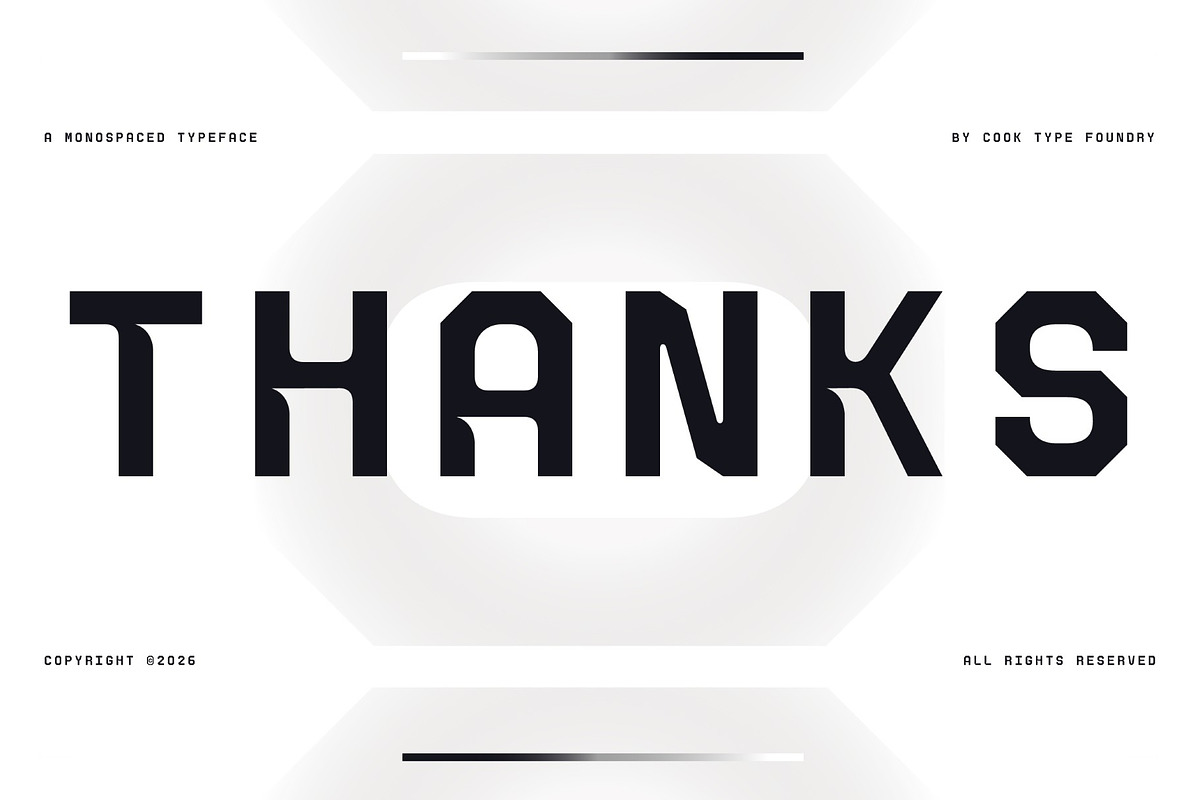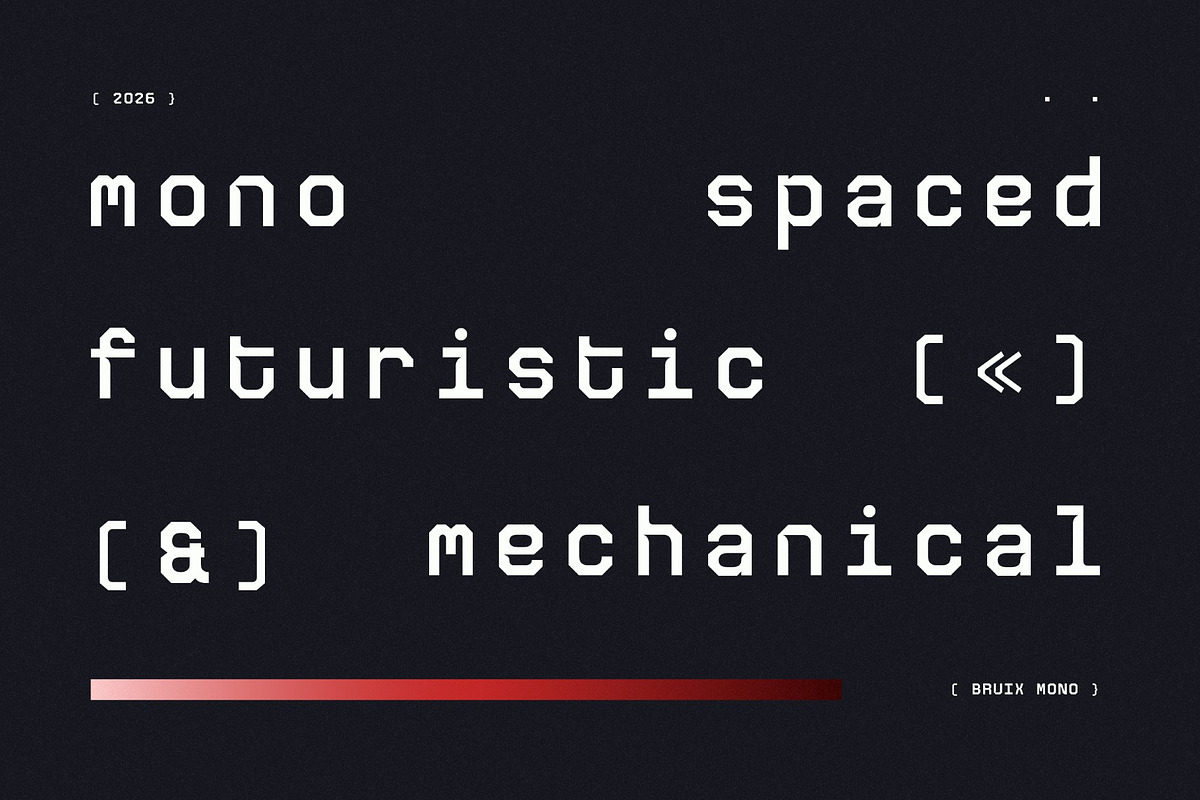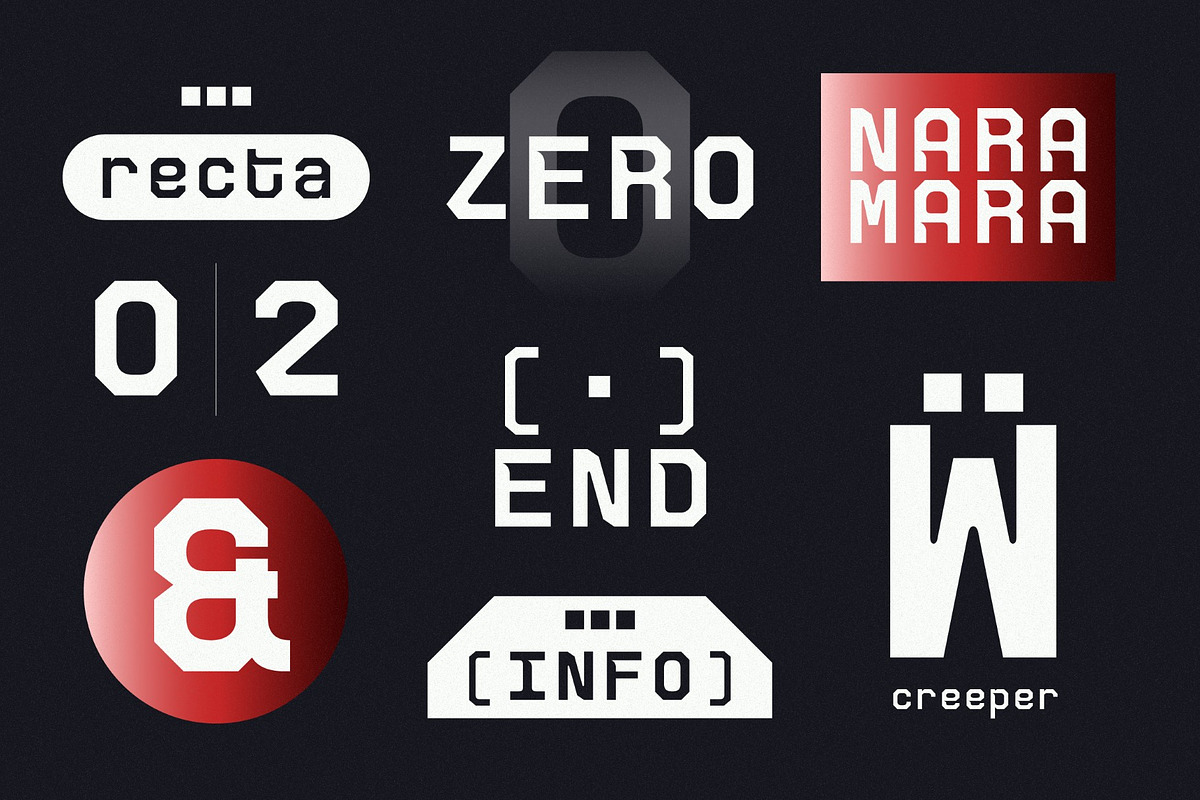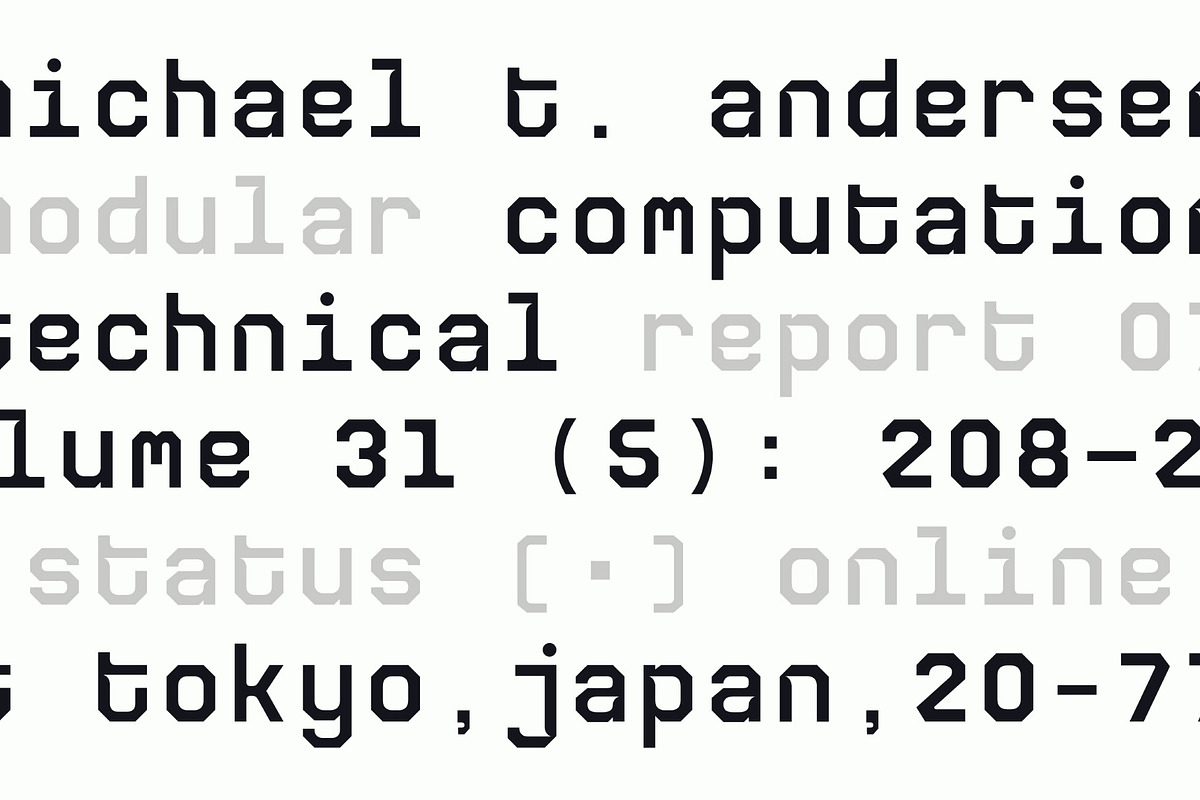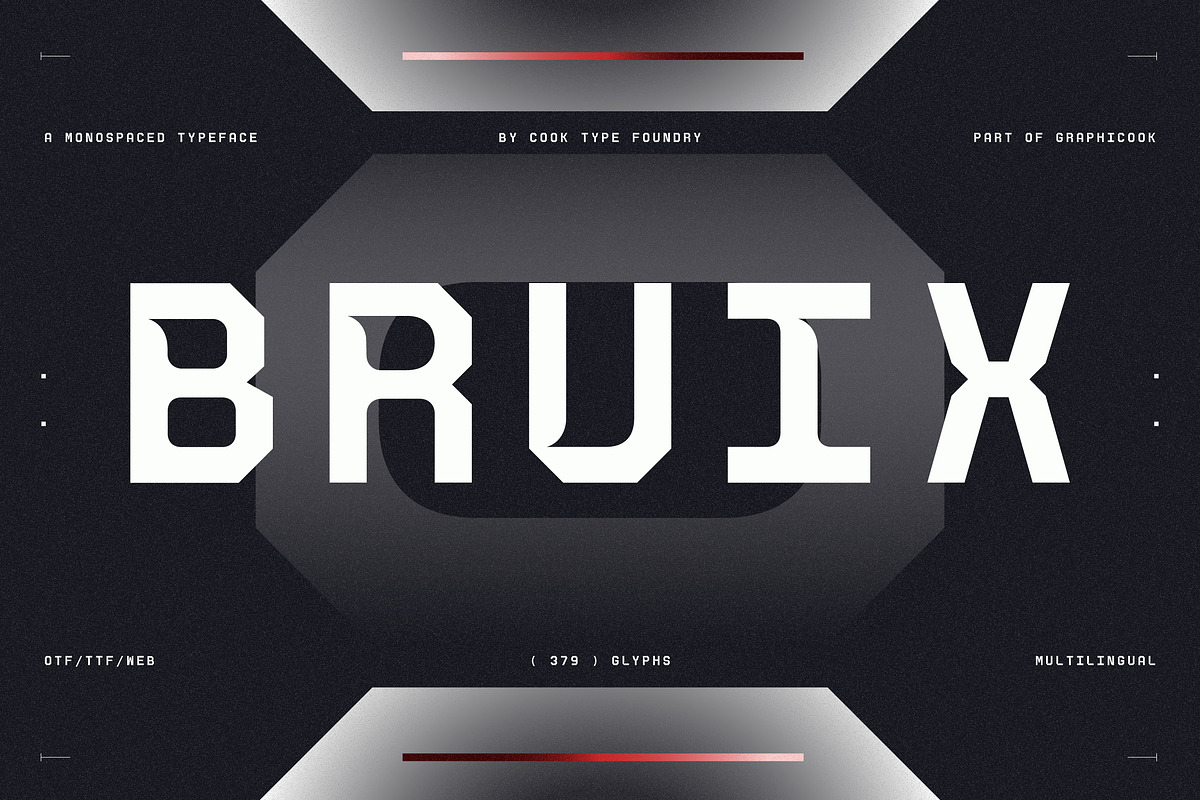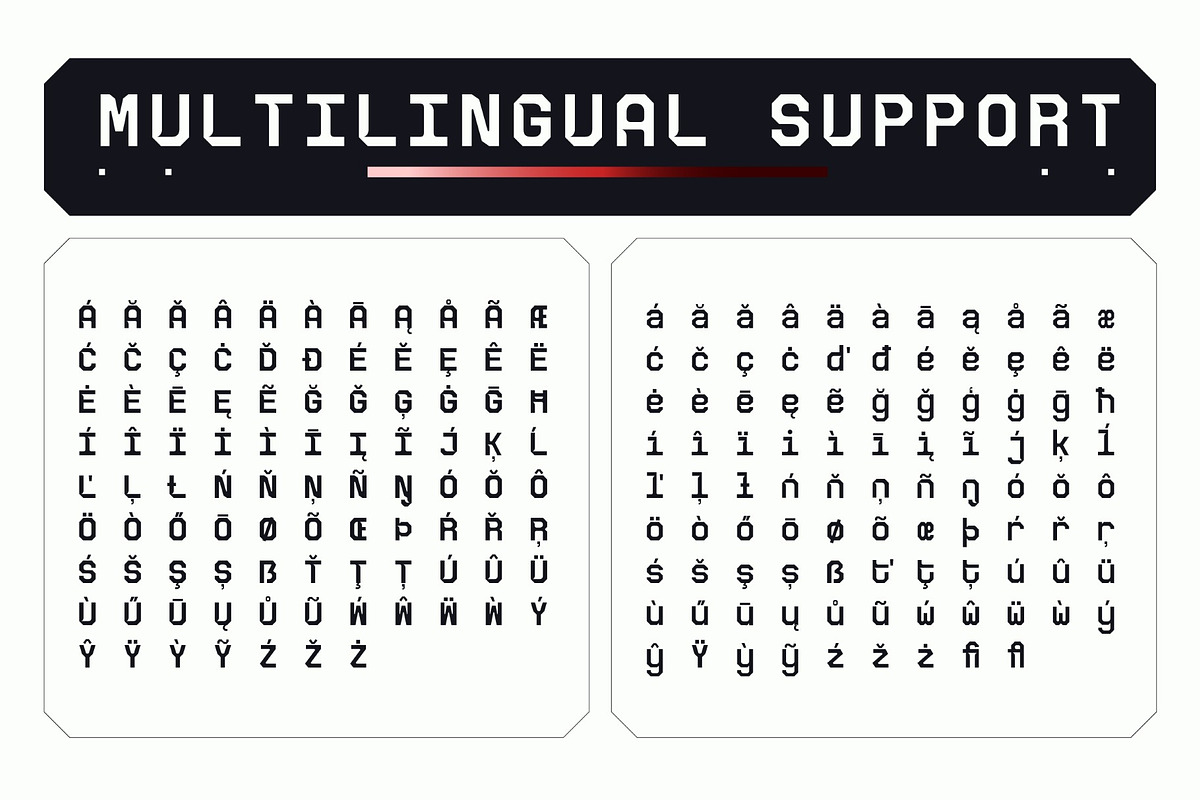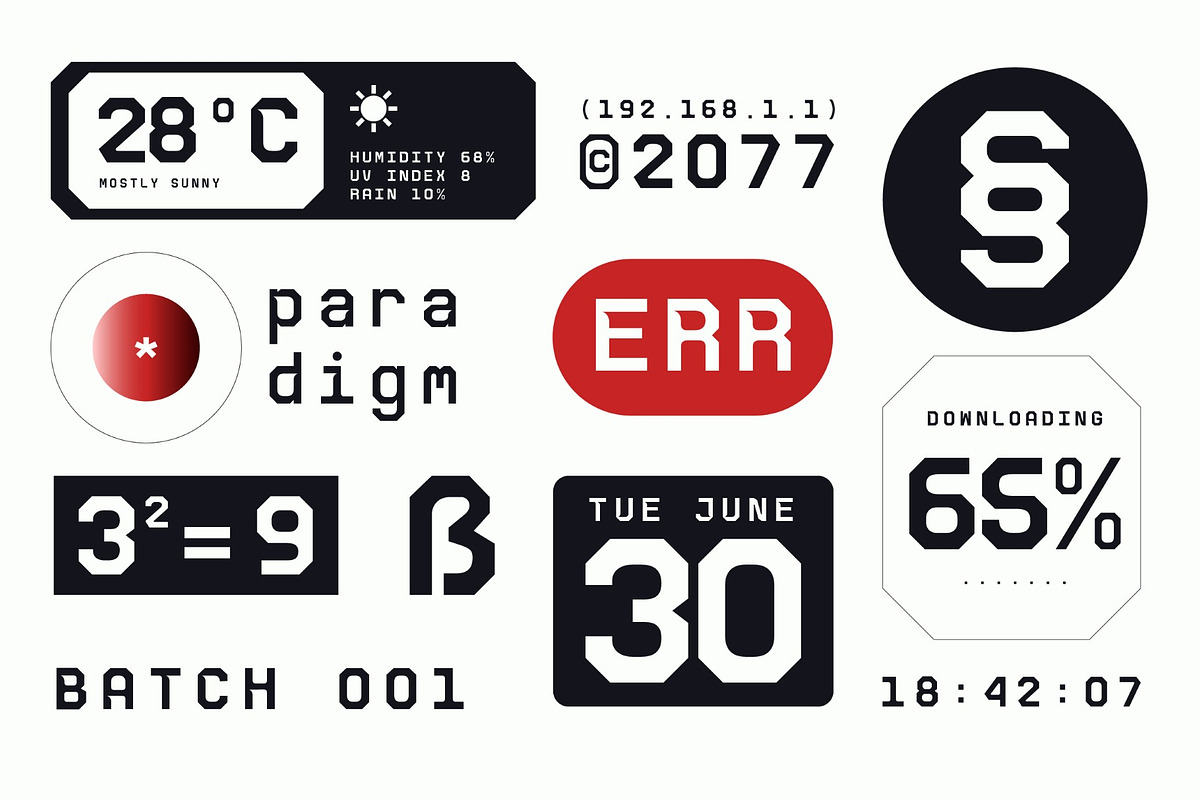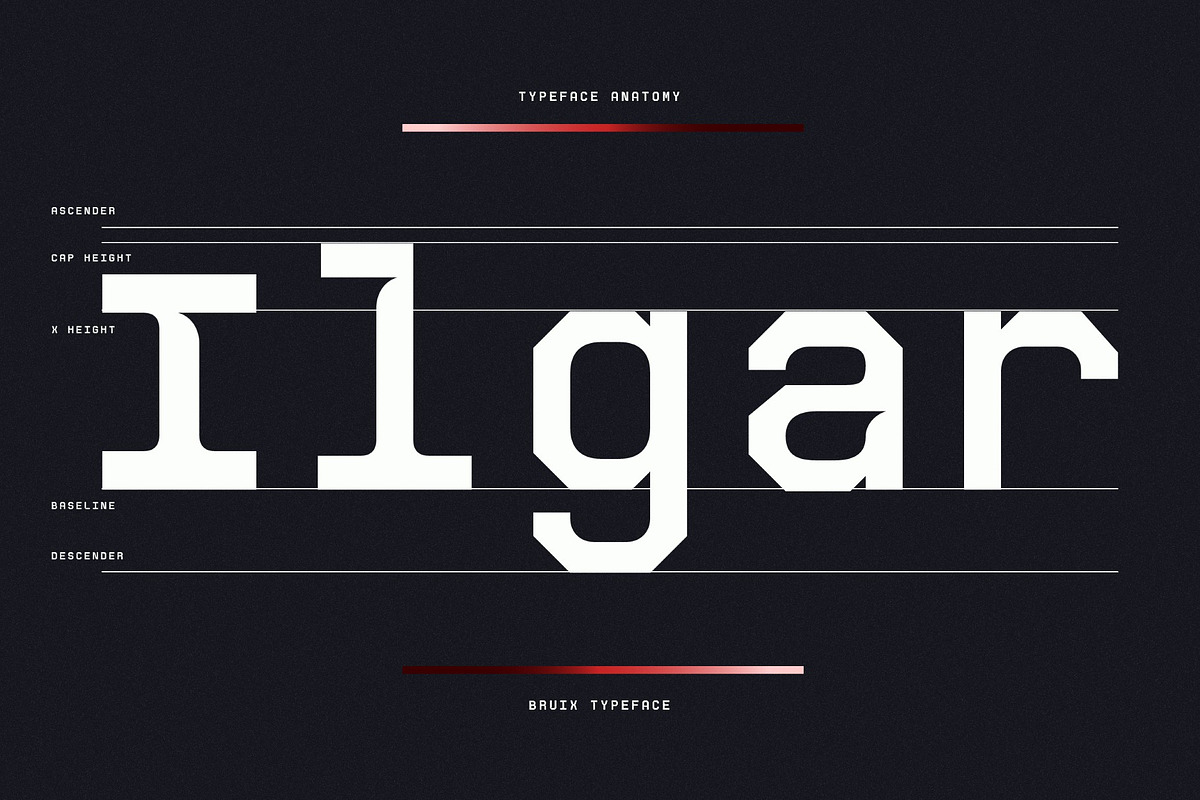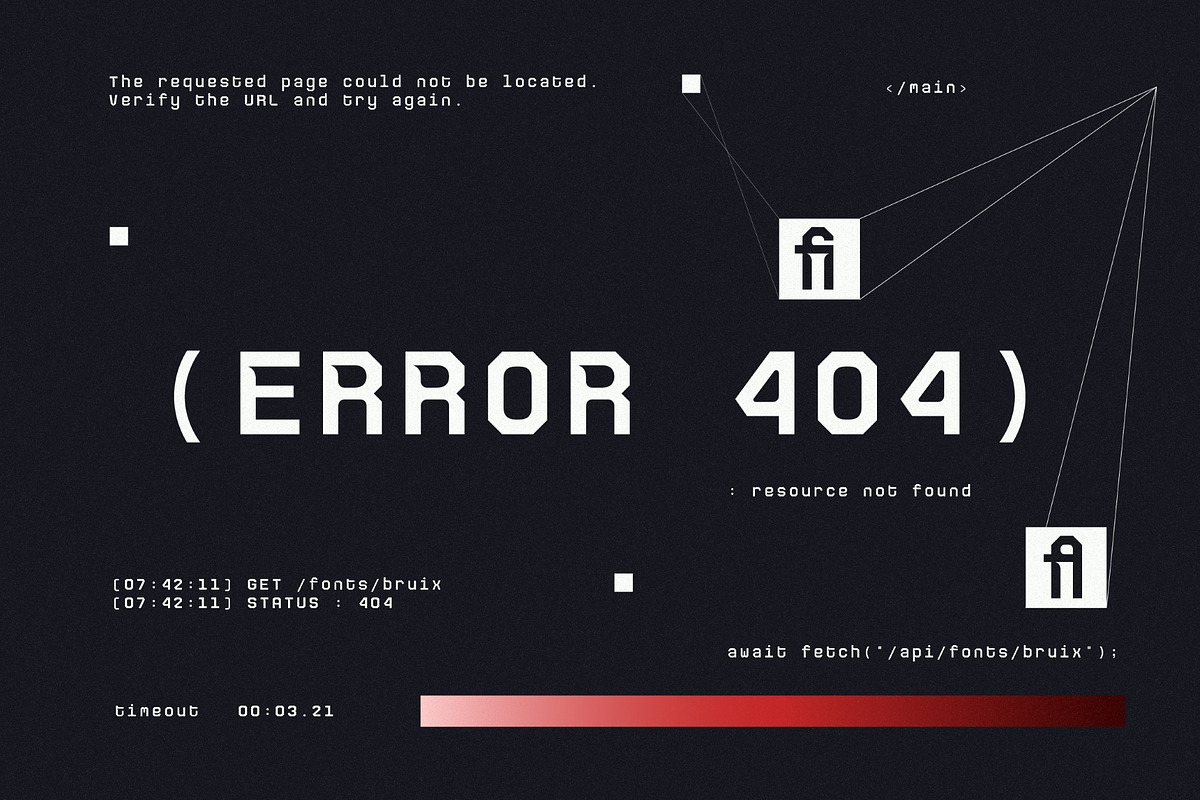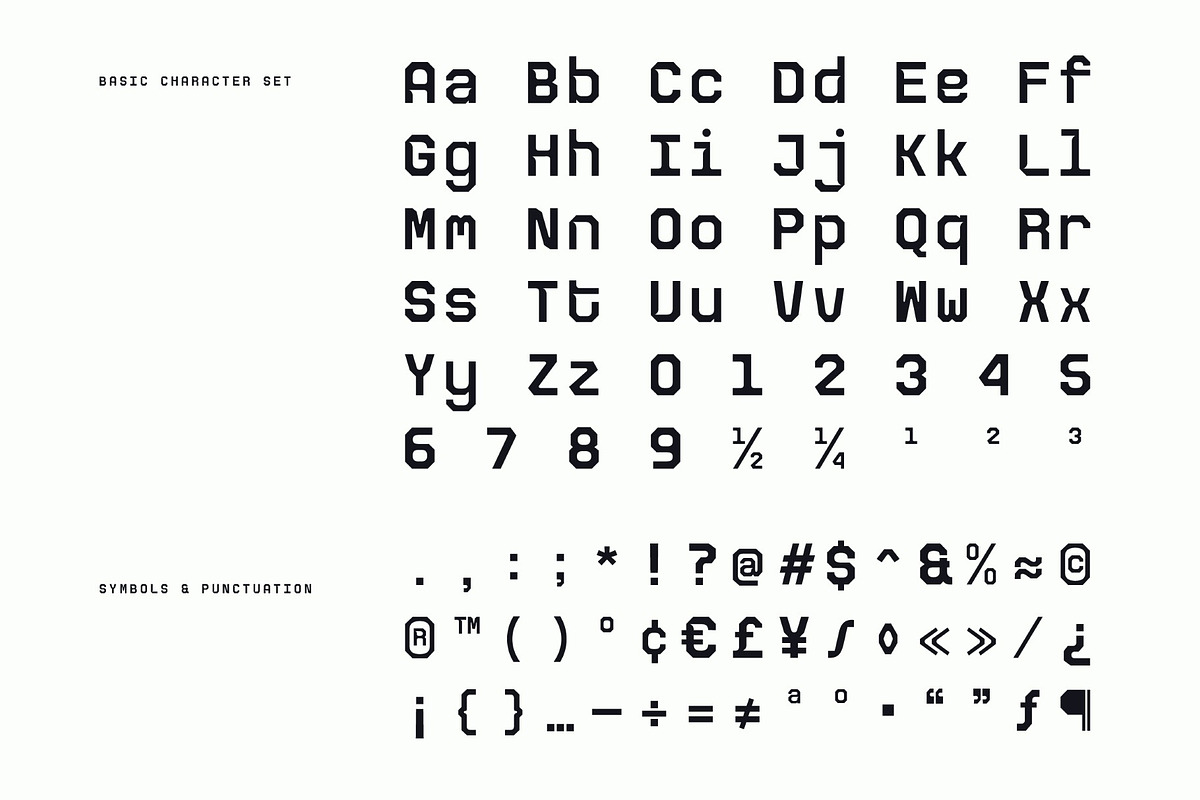
Bruix
Bruix is a bold monospaced typeface with a futuristic, geometric, and industrial personality. Its angular letterforms feature distinctive cut-out details and structured proportions, giving the typeface a mechanical and technical appearance with a strong contemporary edge.
It is perfect for headlines, logotypes, magazines, packaging, quotes, movies, games, cover albums, book covers, and flyers, it's a perfect solution for creating eye-catching designs that stand out in any context.